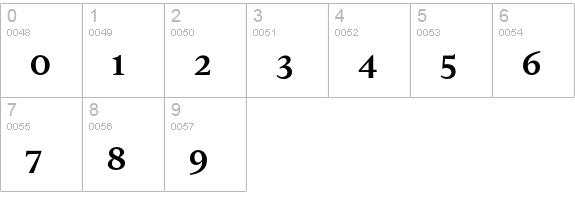
Luxury Text Bold is a strong, high-contrast variant in the Luxury typeface family \xE2\x80\x94 well suited to headlines, attention-grabbing titles, and strong calls-to-action.
Introducing Luxury Text Bold font - a sophisticated and elegant typeface that exudes luxury and class. This exquisite font features sleek lines and clean curves, making it perfect for adding a touch of refinement to any design project. Luxury Text Bold font is versatile and can be used for a variety of purposes, from high-end branding to upscale invitations and more. Its bold and commanding presence will make your text stand out and leave a lasting impression on your audience. The best part? Luxury Text Bold font is completely free to download at FontsMarket.com. Now you can elevate your designs with this premium font without breaking the bank. Don't miss out on the opportunity to add a touch of luxury to your projects with Luxury Text Bold font. Download it today and start creating stunning visuals that are sure to impress.